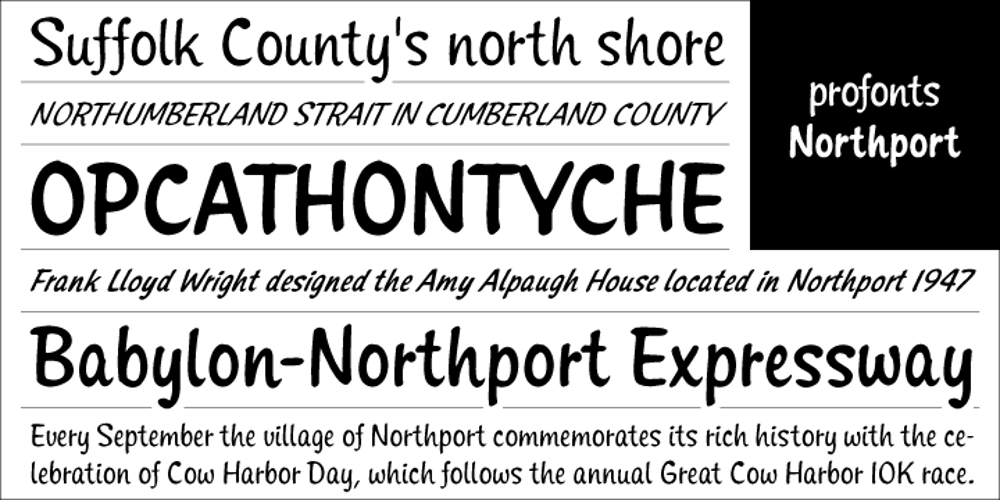
Northport
Northport font
Northport Font Family was designed by published by profonts. Northport contains 6 styles and family package options. Northport is a jaunty,casual and non-connecting script that comes with six styles as light, medium, bold plus italics.